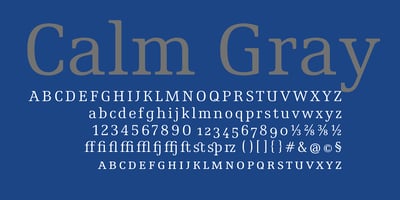
Calm Gray Font Family was designed by Wojciech Regulski and published by WR Foundry. Calm Gray contains 7 styles and family package options. The Calm Gray typeface is a book font with good readability. It is relatively bright, has a gentle rhythm and neutral expression. Calm Gray is a lightweight font, and thanks to its small caps and oldstyle figures, it allows to create a pleasant, unaccented text grayness. The Thin and ExtraBold weights are suitable for headlines and highlights in text while maintaining the uniform character of the design.